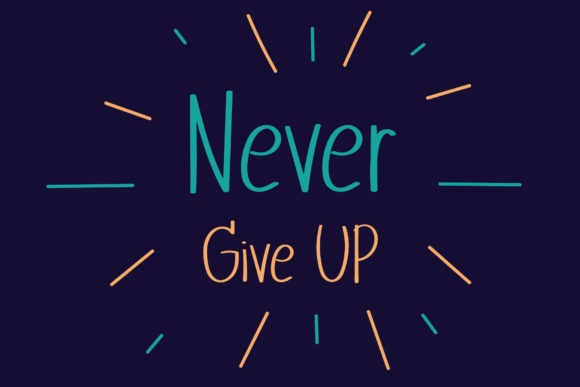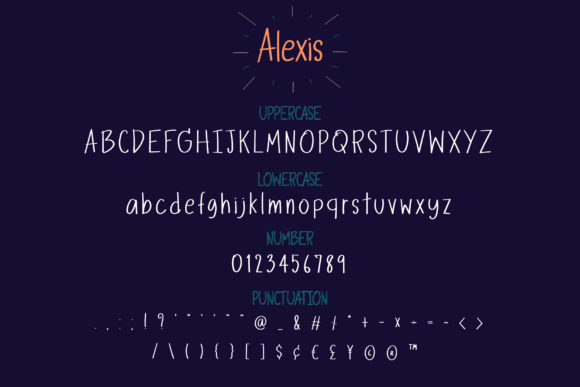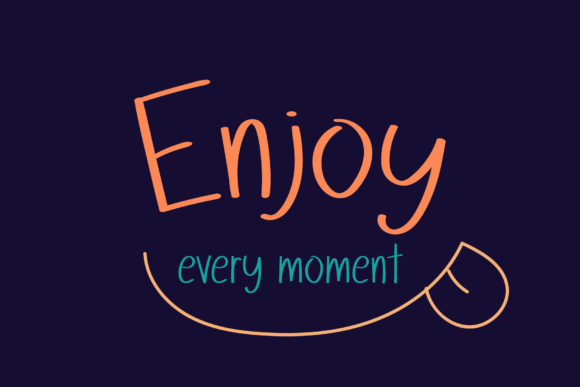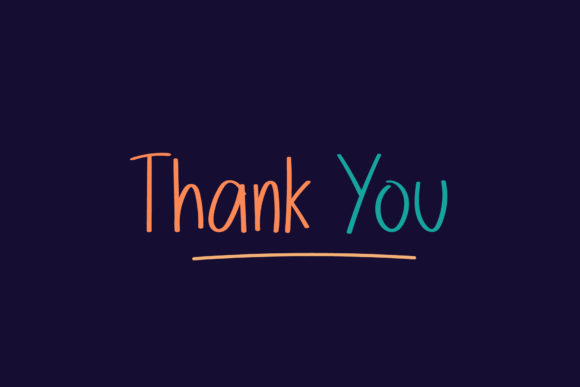
Introducing Alexis Font: The Perfect Blend of Modern and Cute Handwritten Style
Are you on the hunt for a font that embodies the perfect blend of modern and cute handwritten style? Look no further than Alexis Font! This beautiful, clean, and slightly quirky font is designed to elevate your logos, branding, social media, and crafty DIY projects to the next level. In this article, we’ll dive into the world of Alexis Font, exploring its features, benefits, and uses, as well as provide tips and inspiration for designers and crafters alike.
What is Alexis Font?
Alexis Font is a modern and cute handwritten font that boasts a clean and slightly quirky design. Its unique charm makes it an excellent choice for a wide range of creative projects, from logos and branding to social media graphics and crafty DIY endeavors. Whether you’re a professional designer or a crafty DIY enthusiast, Alexis Font is sure to capture your heart and inspire your creativity.
Key Features of Alexis Font
- Modern and Cute Handwritten Style: Alexis Font boasts a fresh and adorable handwritten look that’s perfect for modern designs.
- Clean and Quirky Design: The font’s clean lines and subtle quirks make it both elegant and approachable.
- Versatile and Adaptable: Alexis Font is suitable for a wide range of projects, from logos and branding to social media graphics and crafty DIY projects.
- Easy to Read and Understand: The font’s clear and legible design ensures that your message is conveyed effectively.
Benefits of Using Alexis Font
So, why choose Alexis Font for your next project? Here are just a few benefits of using this beautiful font:
- Adds a Personal Touch: Alexis Font’s handwritten style adds a warm and personal touch to your designs, making them more relatable and engaging.
- Enhances Brand Identity: The font’s unique charm can help establish a strong brand identity and differentiate your brand from others.
- Perfect for DIY Projects: Alexis Font is ideal for crafty DIY projects, such as handmade cards, party invitations, and other paper crafts.
Using Alexis Font for Logos and Branding
Alexis Font is an excellent choice for logos and branding due to its unique and memorable design. Here are a few tips for using Alexis Font in your logo and branding projects:
- Keep it Simple: Use Alexis Font in its simplest form to create a clean and elegant logo.
- Experiment with Colors: Pair Alexis Font with bold and bright colors to create a striking logo that grabs attention.
- Add a Tagline: Use Alexis Font to create a beautiful tagline that complements your logo and enhances your brand identity.
Using Alexis Font for Social Media Graphics
Alexis Font is also perfect for social media graphics, such as Facebook posts, Instagram stories, and Twitter headers. Here are a few tips for using Alexis Font in your social media graphics:
- Keep it Short and Sweet: Use Alexis Font to create short and snappy headlines that grab attention.
- Add Visual Interest: Pair Alexis Font with bold graphics and images to create visually appealing social media graphics.
- Be Consistent: Use Alexis Font consistently across all your social media platforms to establish a strong brand identity.
Using Alexis Font for Crafty DIY Projects
Alexis Font is ideal for crafty DIY projects, such as handmade cards, party invitations, and other paper crafts. Here are a few tips for using Alexis Font in your DIY projects:
- Get Creative with Lettering: Use Alexis Font to create beautiful lettering and calligraphy for your DIY projects.
- Add a Personal Touch: Use Alexis Font to add a personal touch to your DIY projects, such as handmade cards and party invitations.
- Experiment with Materials: Pair Alexis Font with different materials, such as paper, fabric, and wood, to create unique and eye-catching DIY projects.
In conclusion, Alexis Font is a beautiful and versatile font that’s perfect for a wide range of creative projects, from logos and branding to social media graphics and crafty DIY projects. Its modern and cute handwritten style, clean and quirky design, and easy-to-read format make it an excellent choice for designers and crafters alike. Whether you’re looking to establish a strong brand identity, create engaging social media graphics, or add a personal touch to your DIY projects, Alexis Font is sure to inspire your creativity and help you achieve your goals.